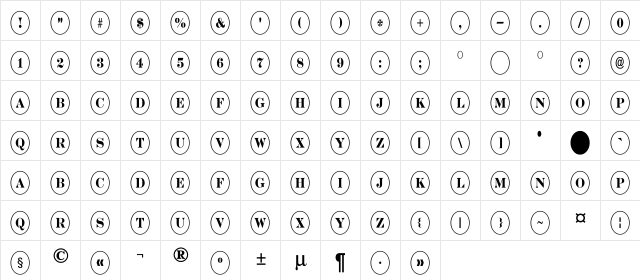
a_DiscoSerifNr Regular Font Preview
a_DiscoSerifNr Regular
a_DiscoSerifNr Regular Font Details
Design Context for a_DiscoSerifNr Typeface
a_DiscoSerifNr carries the refined structure of traditional serif typography, with bracketed terminals and considered proportions that communicate credibility and craft.
Pro Tip: Set a_DiscoSerifNr with slightly loose tracking in headlines to let each letterform's detail read clearly at display sizes.